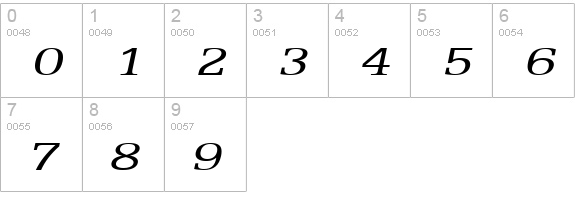
Eggo Extended Italic is a distinctive, extended-width, italic variant in the Eggo typeface family \xE2\x80\x94 well suited to design and typography projects.
Eggo Extended Italic is a modern and stylish font that exudes sophistication and elegance. Its elongated and slanted letterforms add a touch of flair and uniqueness to any design project. This font is perfect for creating eye-catching titles and headlines that demand attention. With its sleek and graceful curves, Eggo Extended Italic effortlessly captures the essence of contemporary design. Whether used in branding, advertising, or editorial layouts, this font brings a sense of modernity and professionalism to any composition. One of the most appealing aspects of Eggo Extended Italic is that it is free. Yes, you read that right! This font is freely available to download at FontsMarket.com. Now you can enhance your designs without any additional cost, making it an excellent choice for both personal and commercial projects. So why wait? Take advantage of this incredible opportunity and download Eggo Extended Italic today. With its exceptional quality and striking aesthetics, this font is sure to elevate your designs to new heights. Don't miss out on this fantastic offer – get your hands on Eggo Extended Italic now and let your creativity soar.